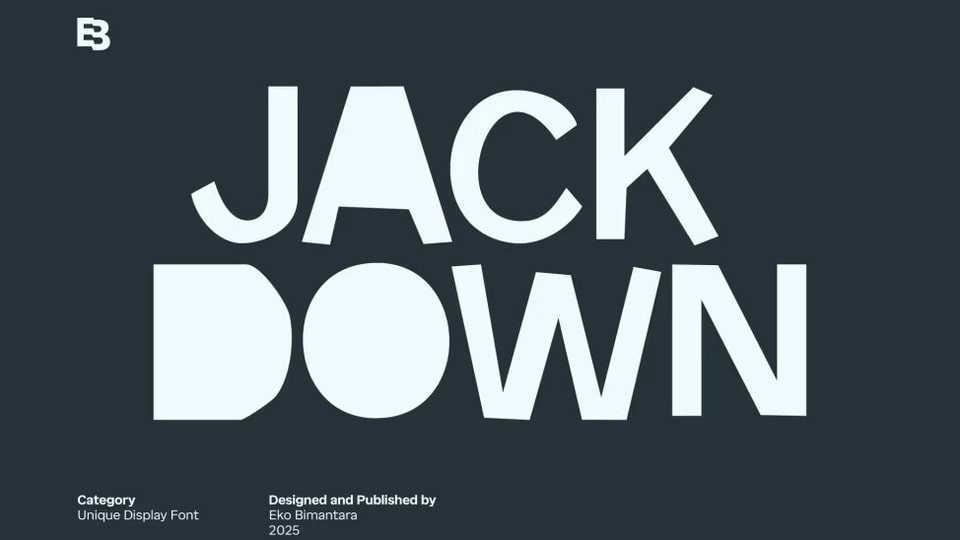
Download Jack Down font, a bold and unconventional display typeface that thrives on contrast and playful imbalance with its sharp cuts, asymmetrical letterforms, and dynamic structure.